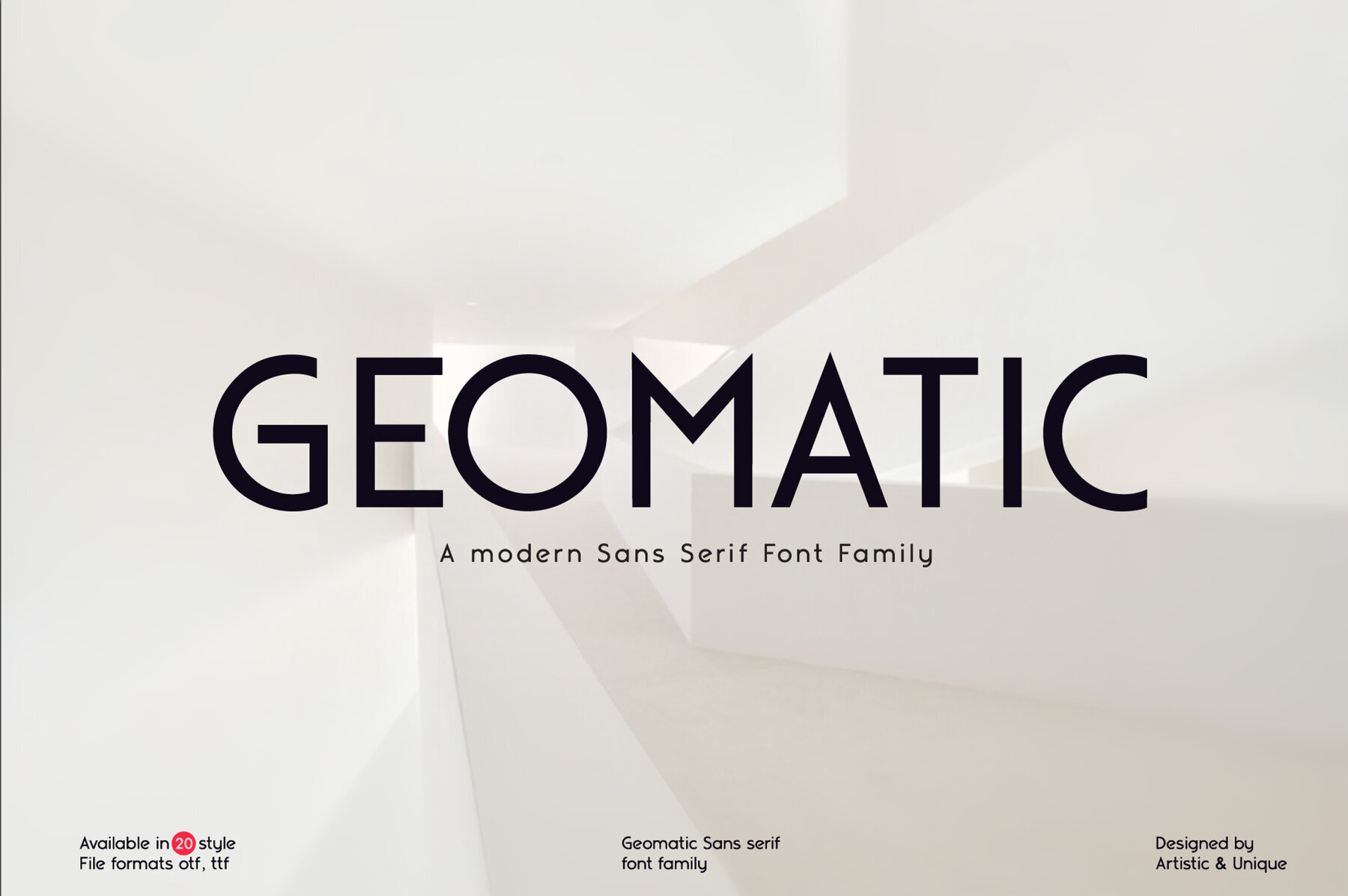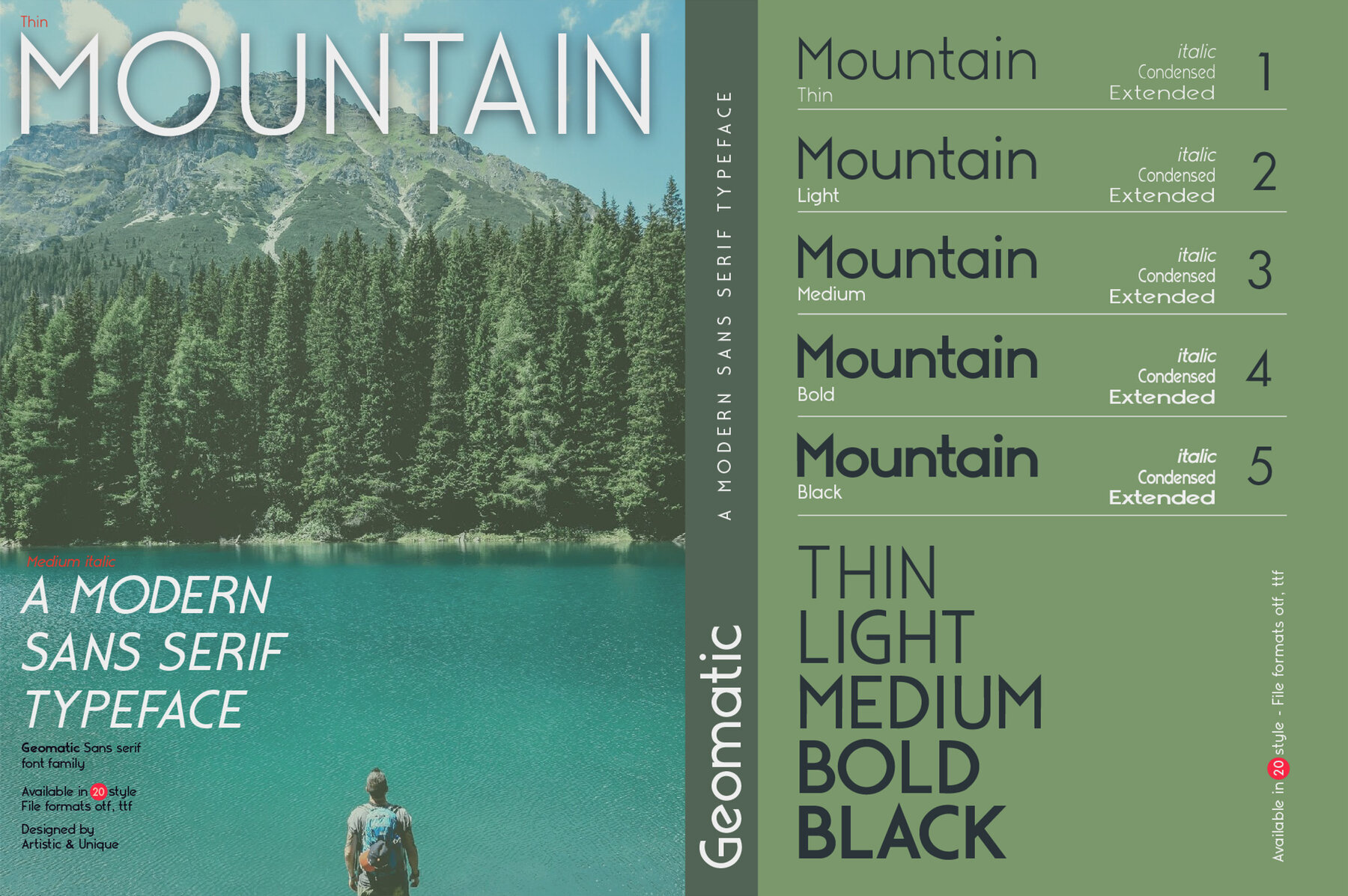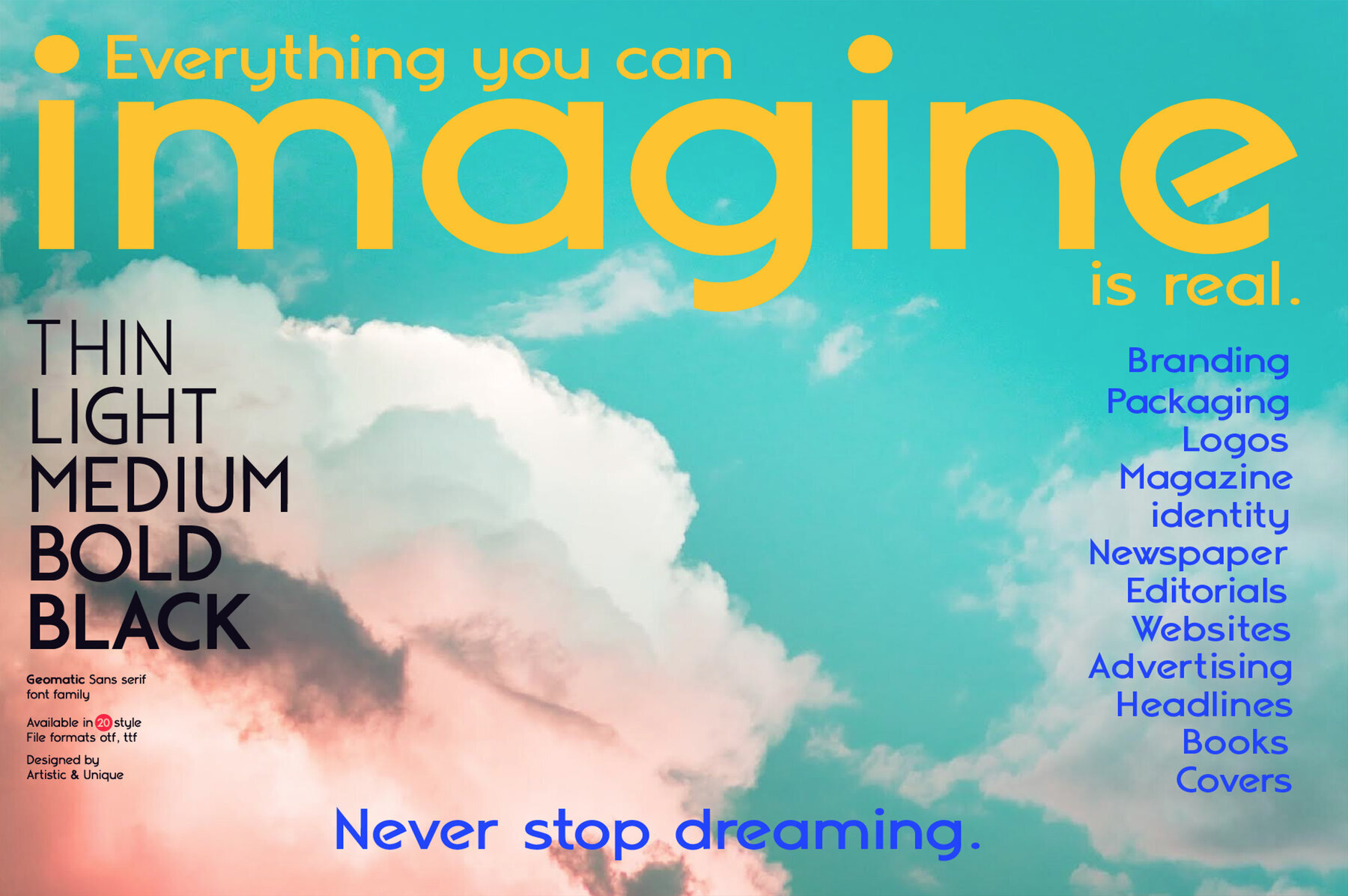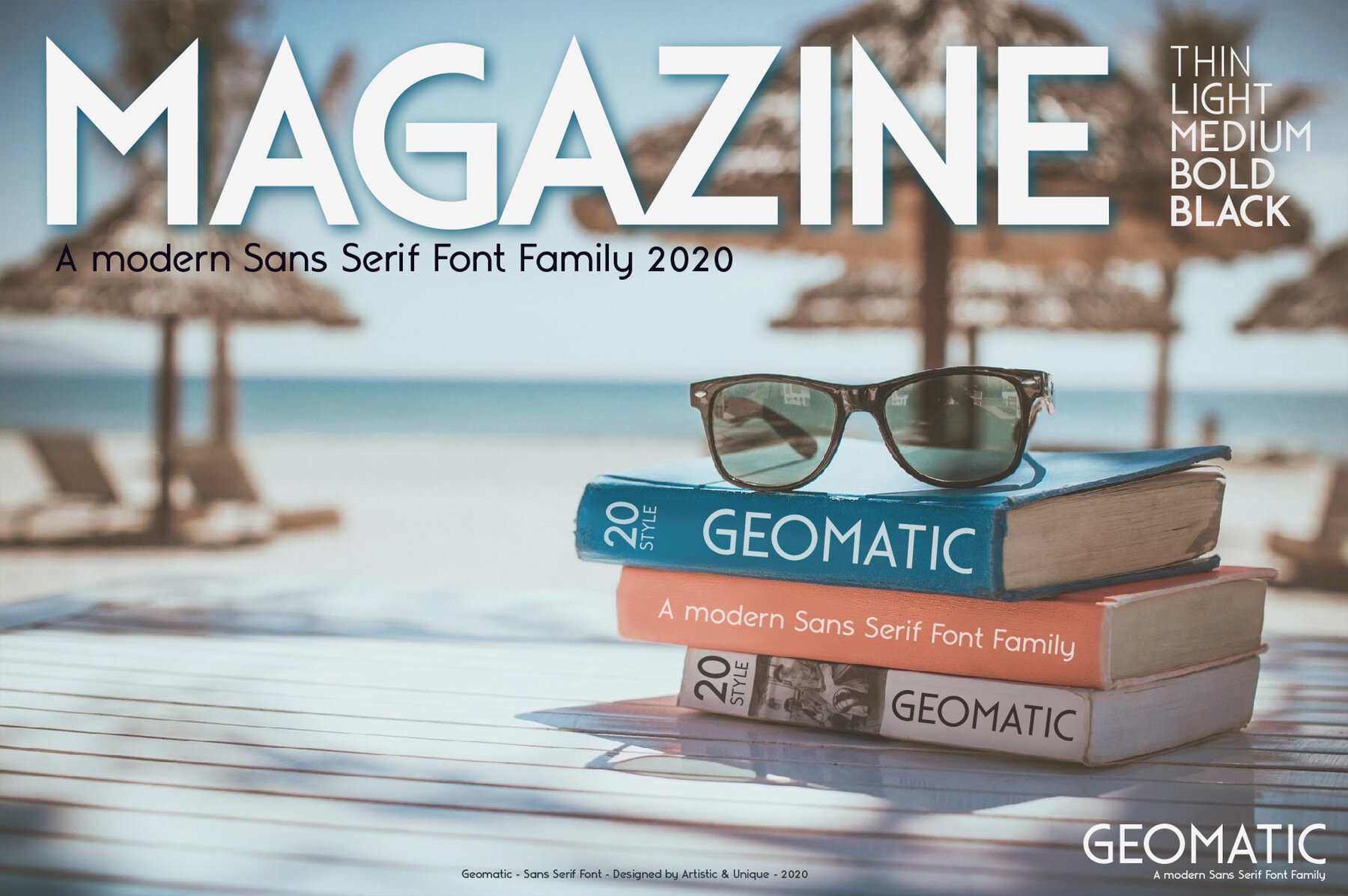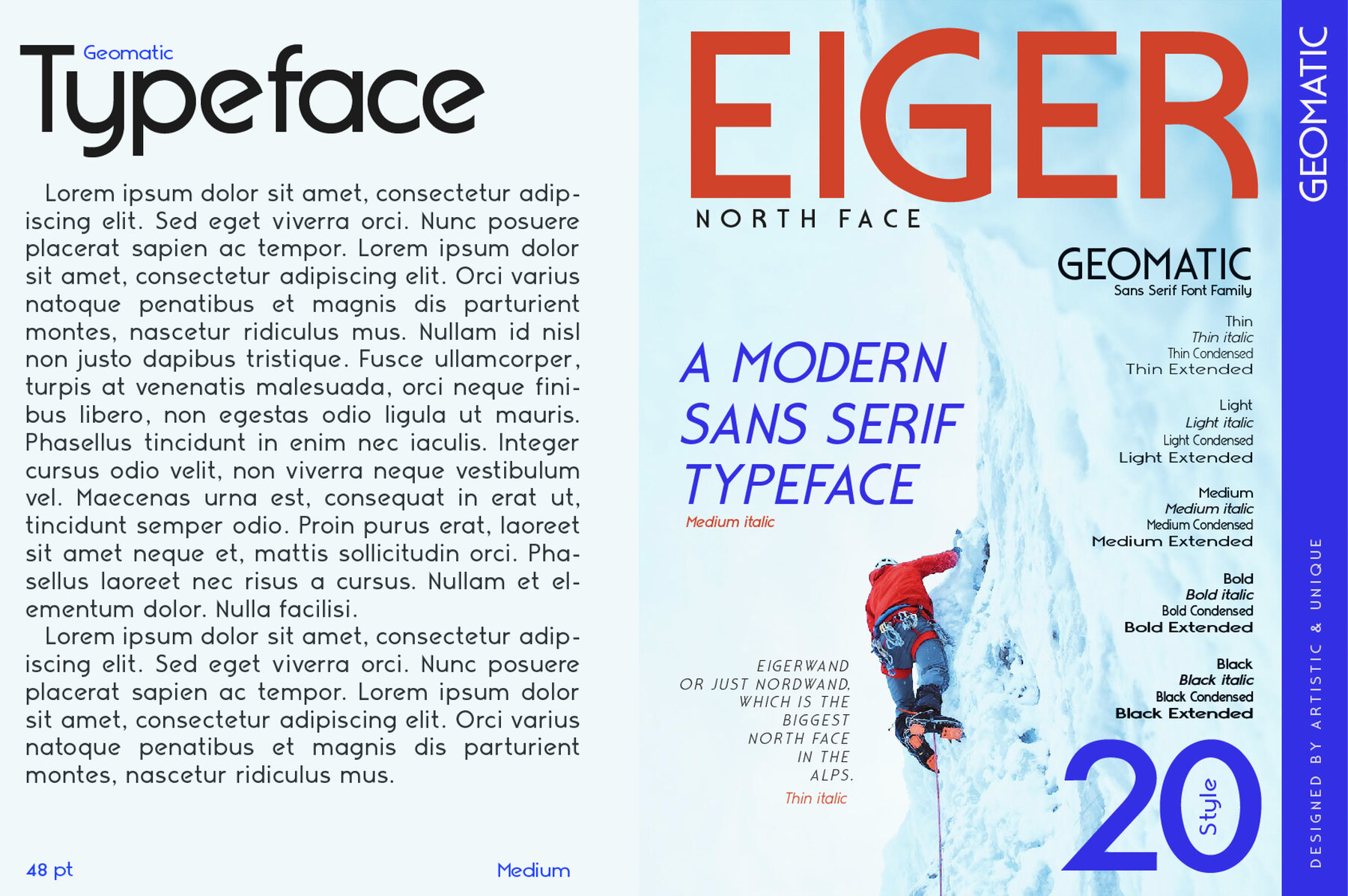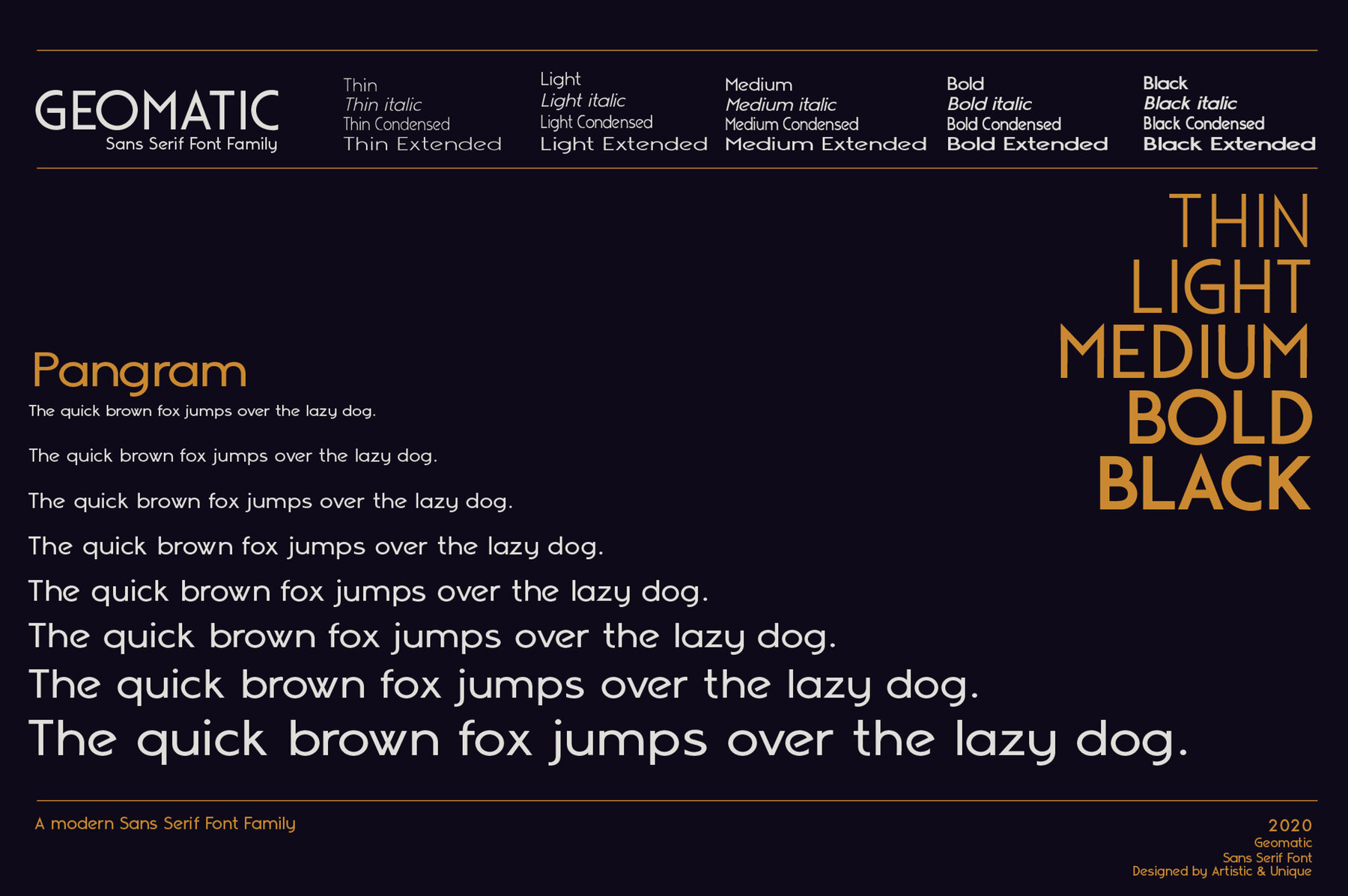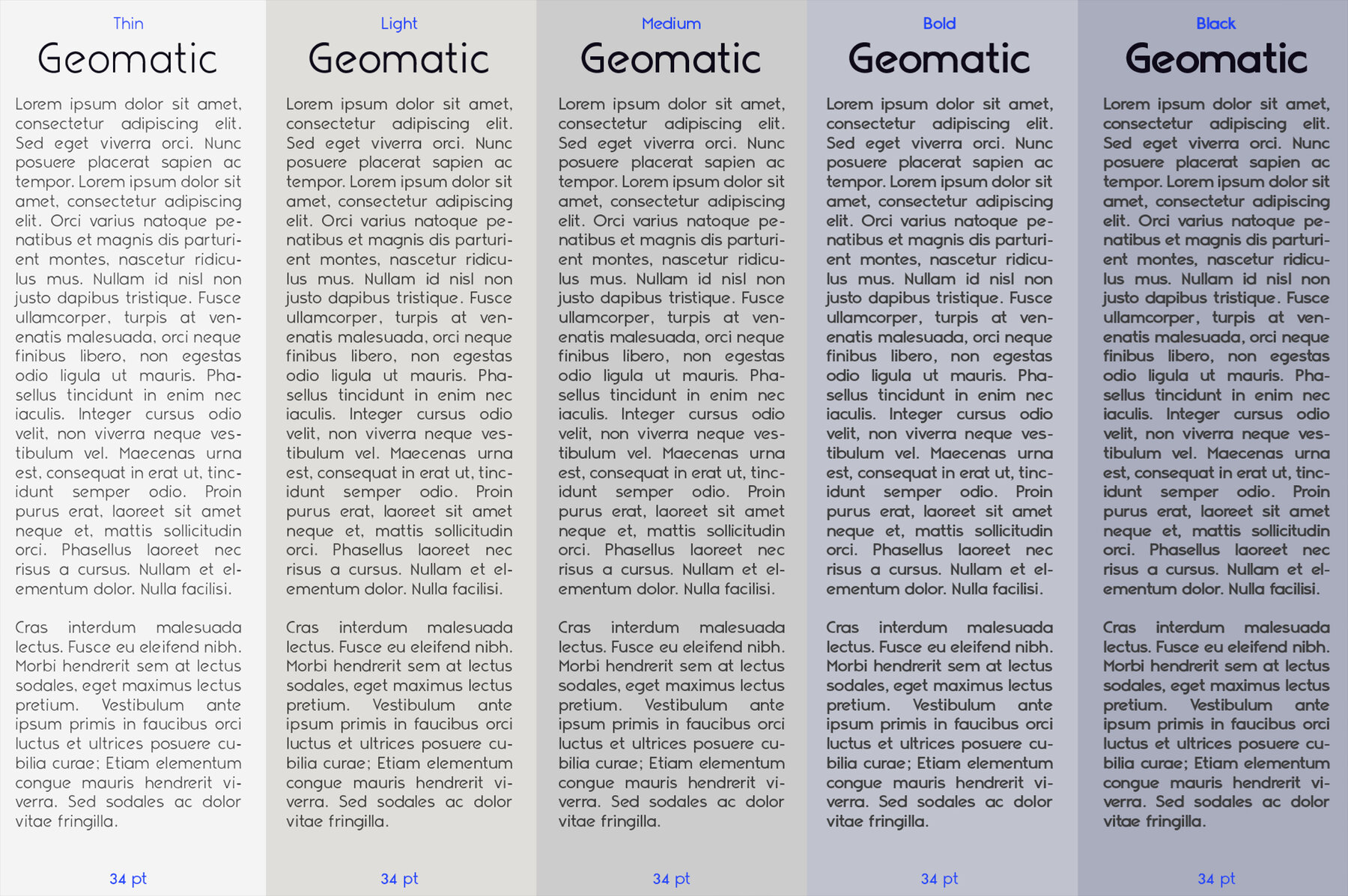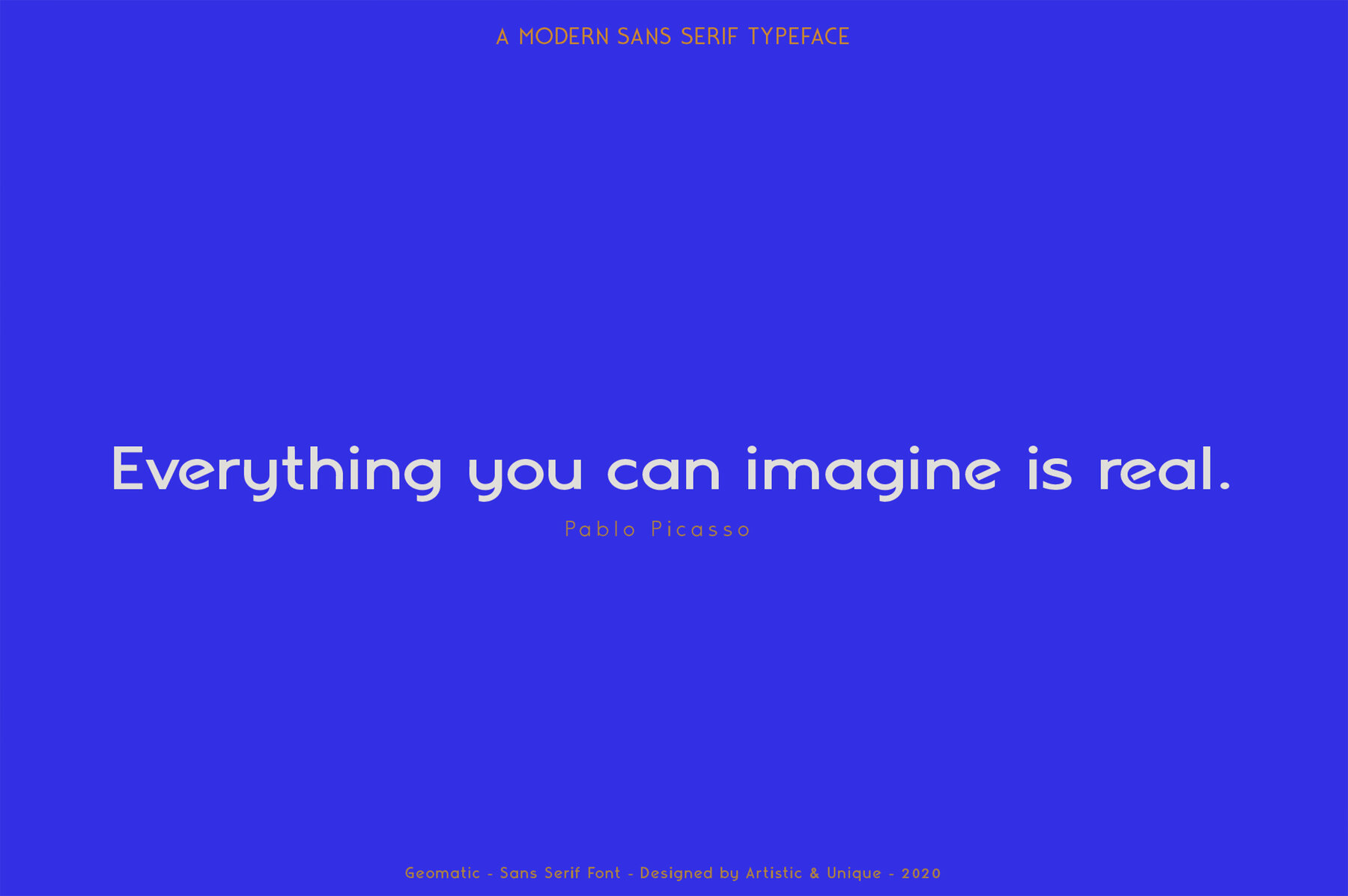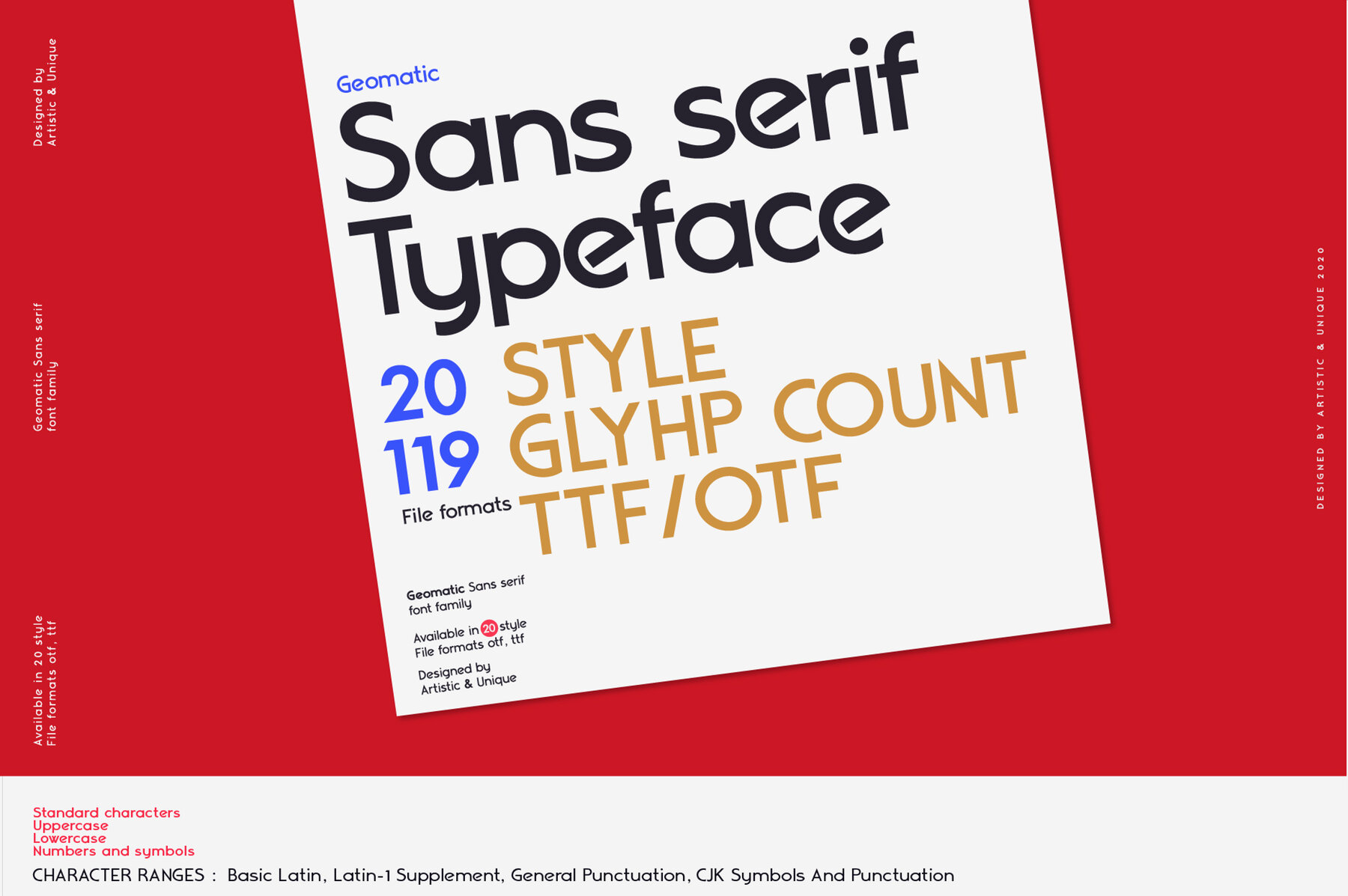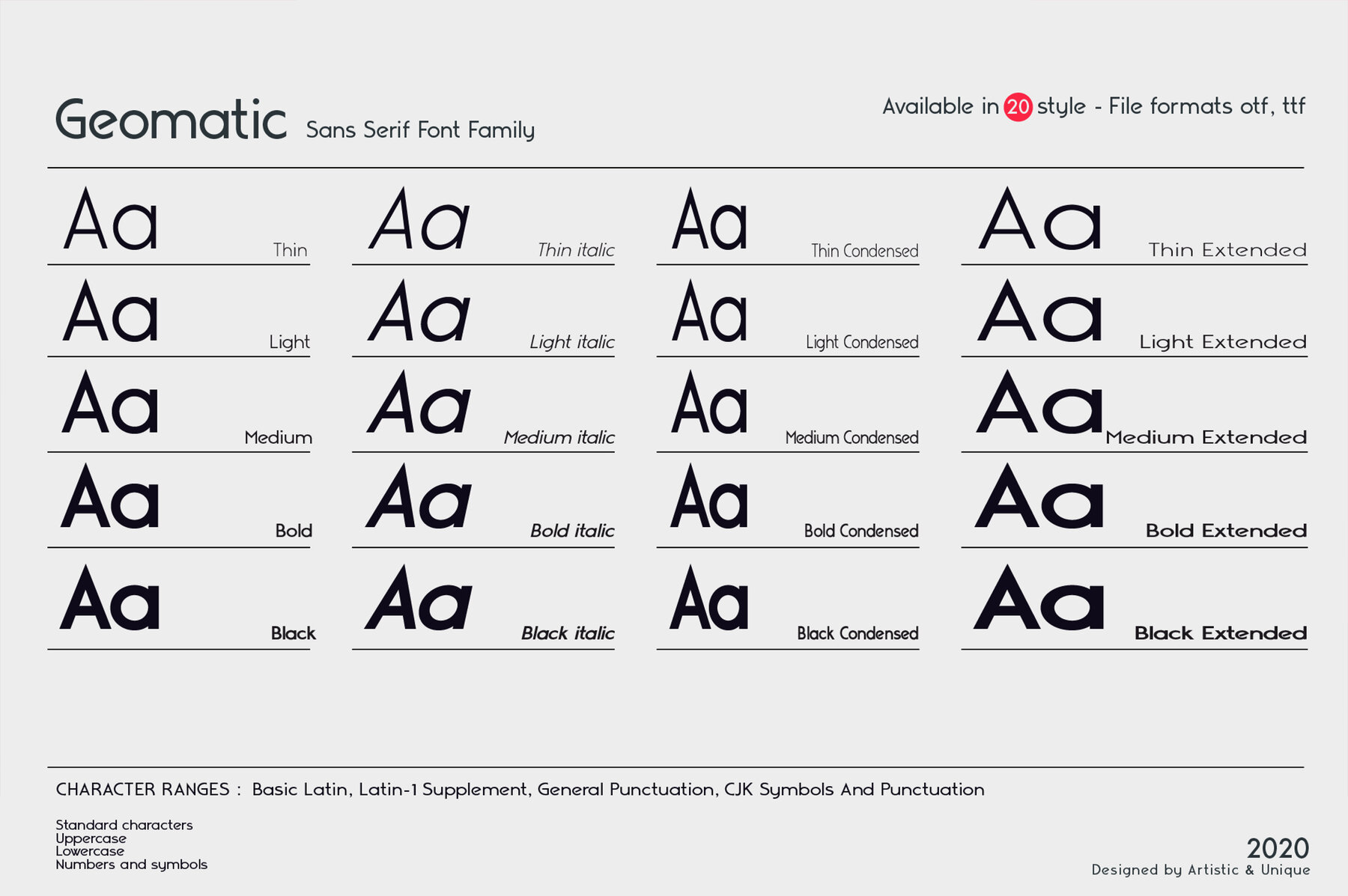
Geomatic Font
Explore the elegance of Geomatic, a contemporary sans serif font family offering 20 unique styles. Perfectly crafted for both modern and classic designs, Geomatic provides the flexibility to tailor your projects with precision. Whether you're creating eye-catching headlines, sleek logos, or immersive editorials, this font family is your go-to choice for clean and sophisticated typography. With its refined and adaptable style, the Geomatic font family ensures your creative endeavors capture the right mood and message. Let Geomatic be the foundation of your unique, striking designs.Geomatic: The Versatile Sans Serif Font Family
Perfect for a Range of Projects